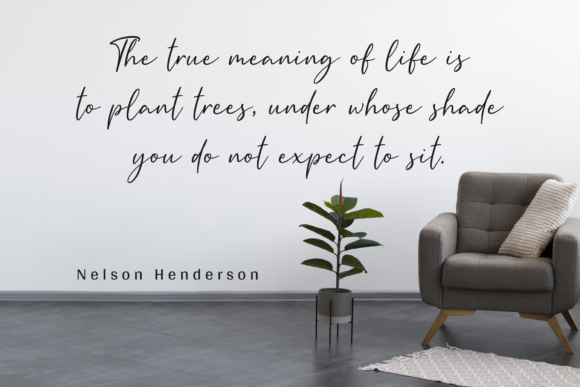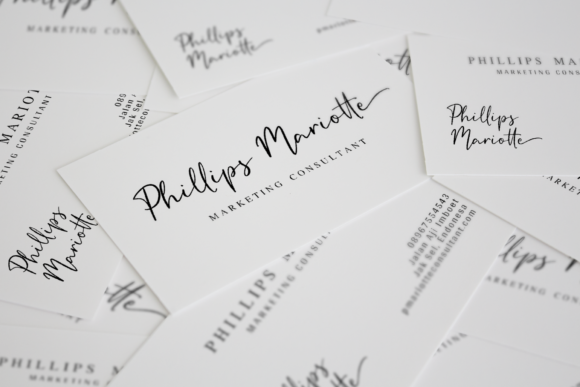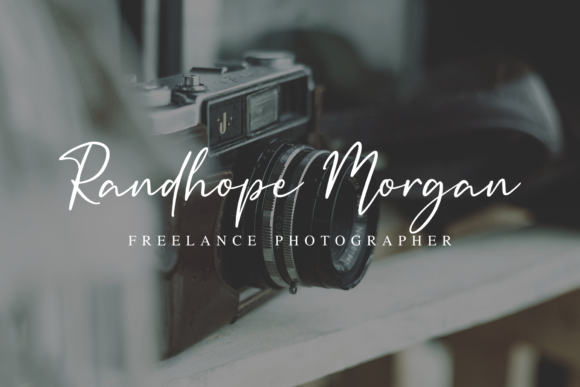
Introduction to Kallinsha Font
As designers, we’ve all been there – staring at a blank canvas, trying to bring a creative project to life. The spark of inspiration hits, and suddenly, the possibilities seem endless. For those moments when you need a little extra magic, enter the Kallinsha Font – a truly exceptional handwritten font that simplifies elegance into one stunning package.
Whether you’re crafting beautiful wedding invitations, designing eye-catching social media posts, or creating gorgeous stationary art, the Kallinsha Font is an invaluable design resource. Its authentic feel and high quality make it a valuable addition to any designer’s toolkit. With its versatility and charm, you can use it to bring a personal touch to your projects and make them truly stand out.
Key Features of Kallinsha Font
• High-quality design resource ideal for creative projects, offering a unique and elegant style.
• Features a transparent background, making it easy to use in various design applications and backgrounds.
• Supports a wide range of languages, including Latin, Cyrillic, and Greek, making it a versatile choice for multilingual projects.
• Designed with a high level of detail and precision, resulting in a crisp and clear appearance at resolutions up to 300 DPI.
Honest Review: Kallinsha Font
I recently came across the Kallinsha Font and was excited to give it a try in my latest design project. As a designer, I’m always on the lookout for high-quality design resources that can elevate my creative work. The Kallinsha Font definitely delivers.
What works well: ✨ The font has a unique, modern design that’s perfect for creating a professional and sleek look. It’s also highly customizable, making it easy to adjust to fit my project’s specific needs. The transparent background option is a nice touch, allowing me to easily integrate the font into my design without any visual clutter.
What could be improved: ⚠️ One thing I noticed is that the font can be a bit difficult to read at smaller font sizes. However, this is a minor issue that can be easily fixed by adjusting the font size or using a font combination.
Overall, I’m really impressed with the Kallinsha Font. It’s a great addition to any designer’s toolkit and is perfect for a wide range of creative projects. The free download option is also a nice bonus, making it accessible to designers of all skill levels.
Here are some key features that make the Kallinsha Font stand out:
• Unique, modern design
• Highly customizable
• Transparent background option
Kallinsha Font is a high-quality design resource perfect for creative projects. This versatile font is ideal for various applications, including branding, web design, and print materials.
For Adobe Photoshop and Illustrator, simply install the Kallinsha Font and select it from the font list. You can then use it to create professional-grade designs for various creative projects.
To use Kallinsha Font in PowerPoint and Word, simply install the font and select it from the font list. You can then use it to create engaging presentations and documents.
Tips for Getting the Most Out of Kallinsha Font
For optimal results, use Kallinsha Font on a transparent background to achieve a clean and modern look. Experiment with different font sizes and styles to create visually appealing designs.
Kallinsha Font is perfect for:
• Branding and logos
• Web design and development
• Print materials, such as business cards and brochures
• Social media graphics and advertising
Alternatives to Kallinsha Font
The Great Vibes Font is a high-quality, handwritten font that is perfect for creative projects that require a touch of elegance and sophistication. It’s ideal for use in wedding invitations, quotes, and other design elements where a personal touch is needed. Compared to Kallinsha Font, Great Vibes Font has a more refined and polished look, making it suitable for a wide range of design resources.
What is the recommended font size for optimal readability with the Kallinsha Font?
For optimal readability, we recommend using the Kallinsha Font at a minimum size of 12 points. However, feel free to experiment with different font sizes to achieve the desired visual effect for your design. The high-quality design of the Kallinsha Font ensures that it remains legible and visually appealing even at larger font sizes.